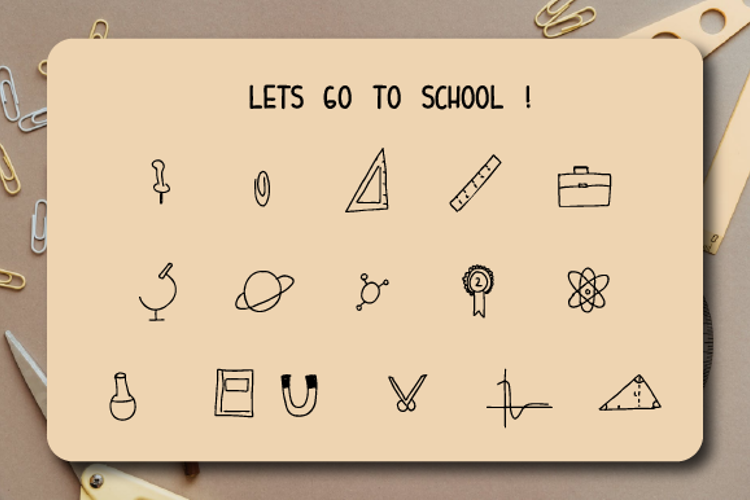
Lets go to school Font
Let’s Go to School is a neat and incredibly useful dingbats font. Add it to your school related designs and make them come alive!